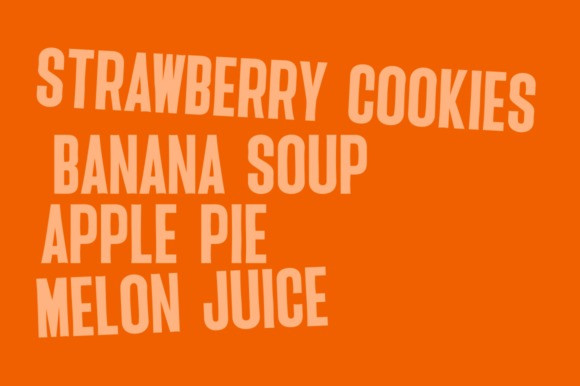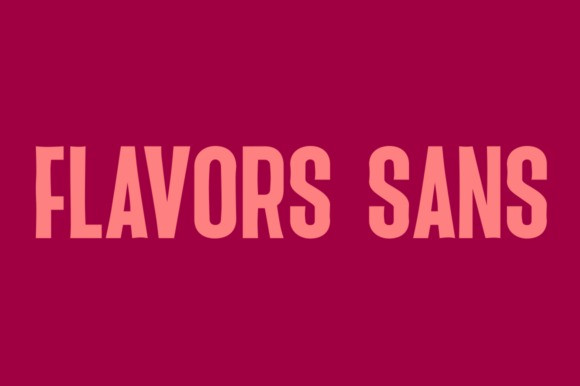
Flavor Sans Font
Flavor Sans Font is a sans serif font suitable for casual-themed design applications. This font is made with a unique shape and condensed width, as well as a strong authenticity value.